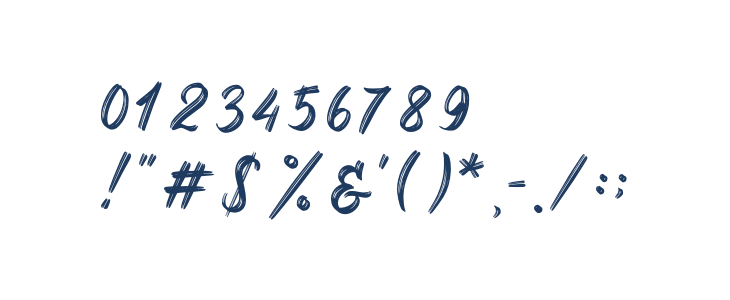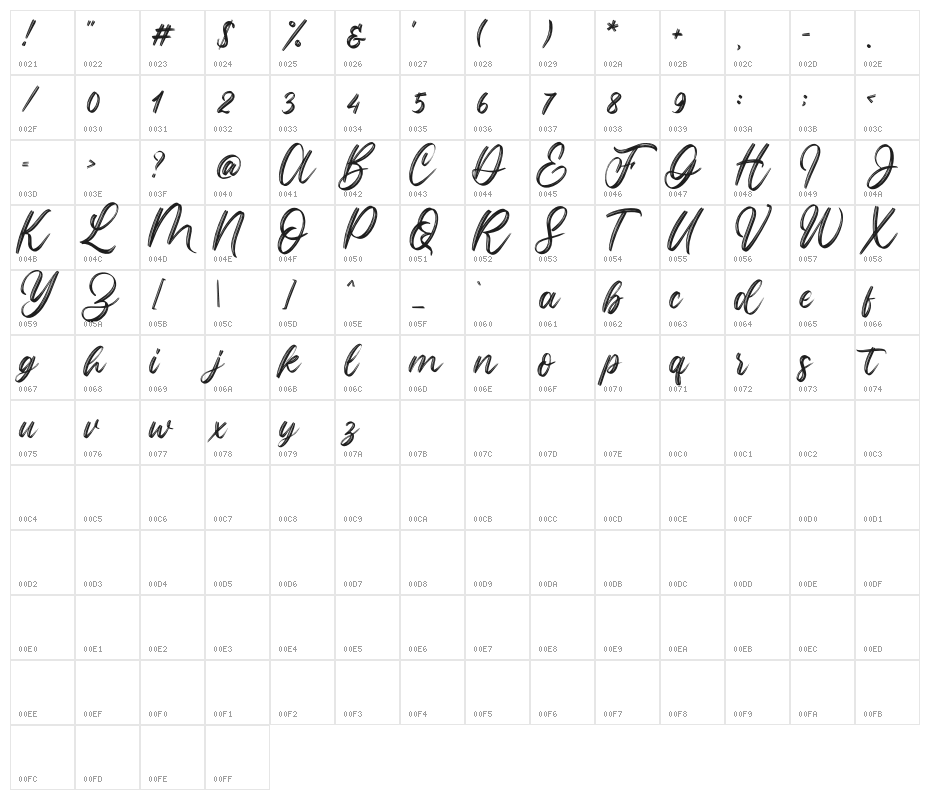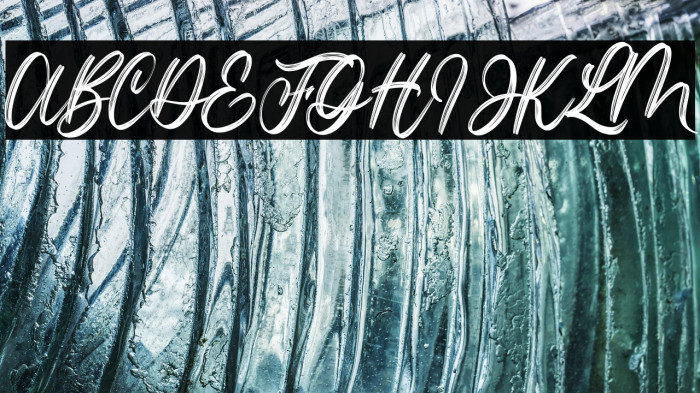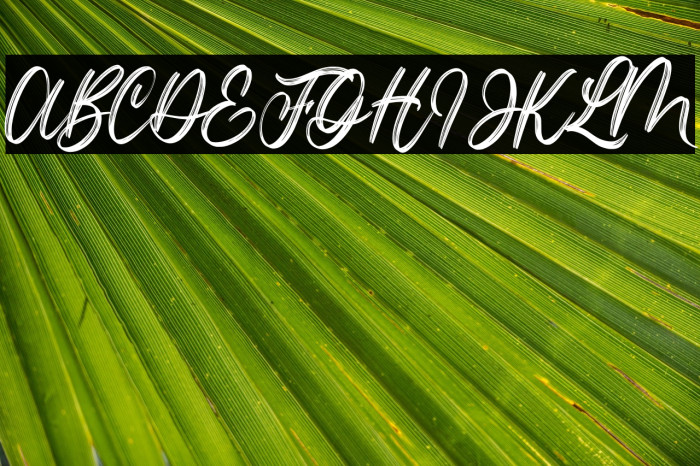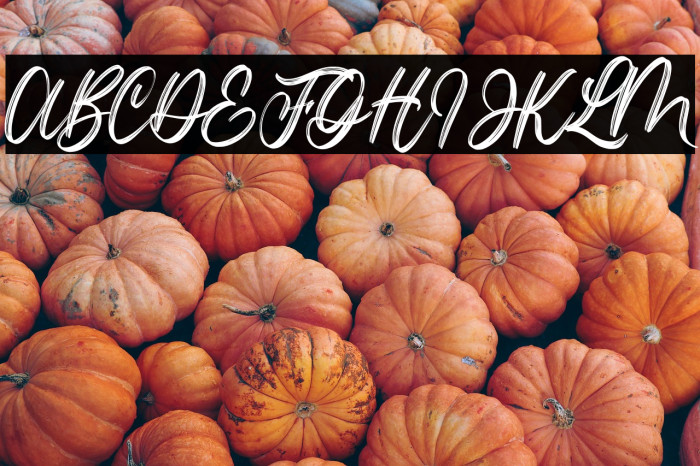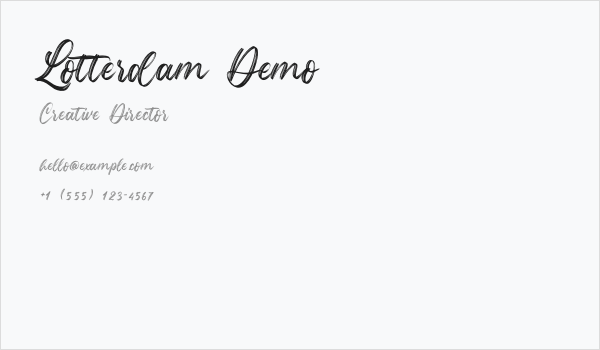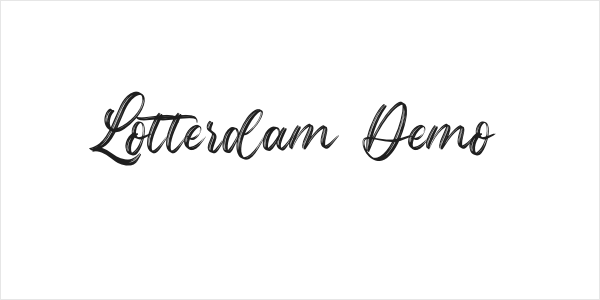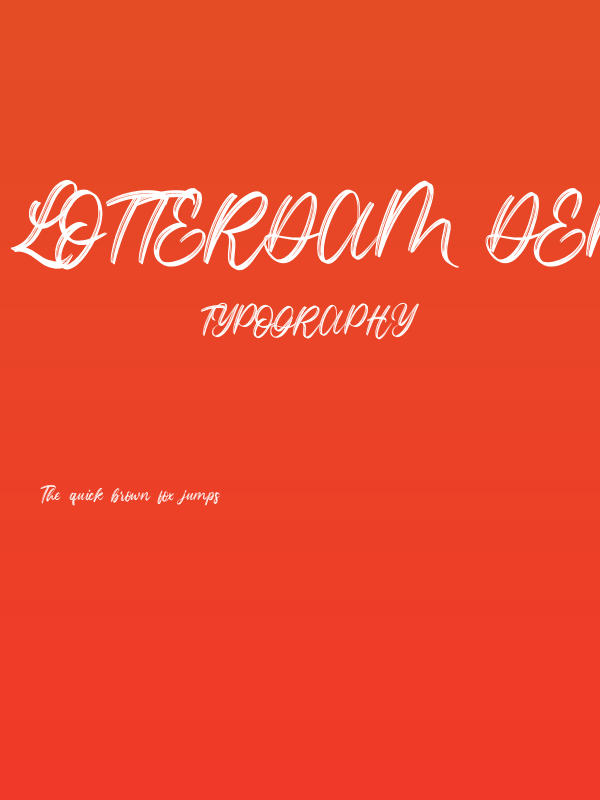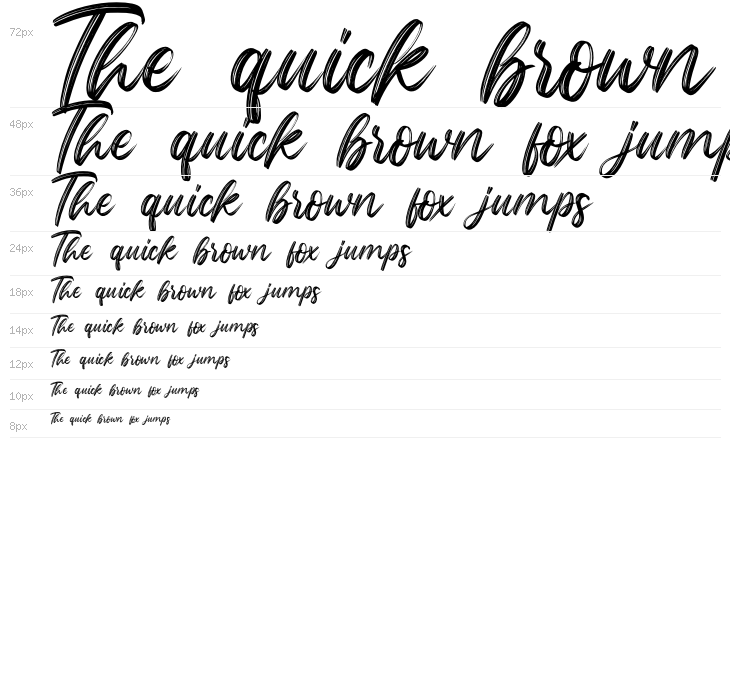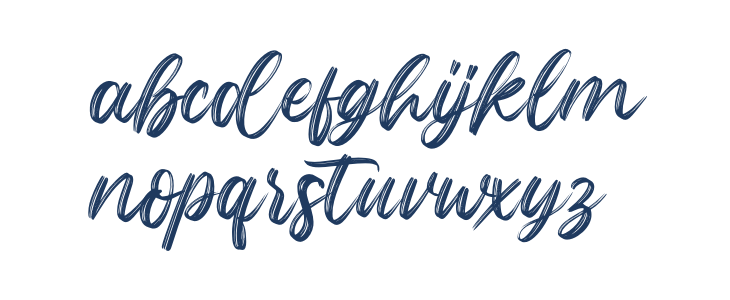
Lotterdam Demo Font
Lotterdam Demo Description
This font features a dynamic and expressive script style, characterized by its fluid and cursive letterforms. The strokes are bold and energetic, with a hand-drawn quality that adds a personal touch. Each character flows seamlessly into the next, creating a sense of movement and rhythm. The uppercase letters are slightly more structured, while the lowercase letters exhibit a playful and informal vibe. The numerals and special characters maintain the same lively aesthetic, ensuring consistency across all elements. This font is ideal for projects that require a touch of elegance and creativity.
Use CaseLogos, Headlines, Invitations
Proposed ProjectsIdeal for wedding invitations, greeting cards, branding, and social media graphics.